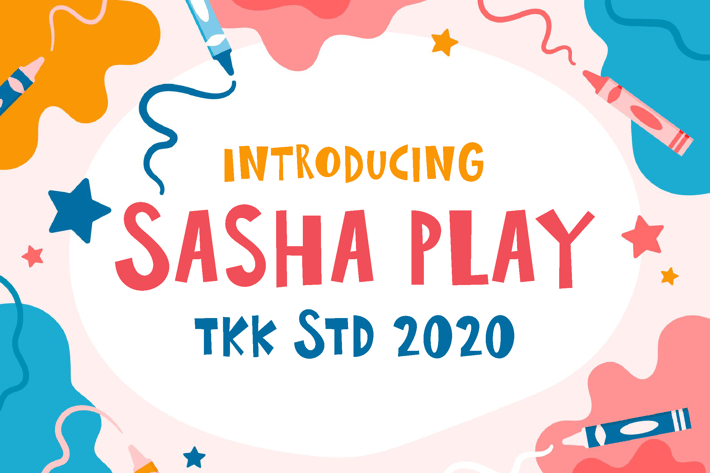
Sasha Play - Funny and Cute Comic font
SASHA PLAY – A Playful and Creative Kids’ Typeface
Sasha Play is a colorful, kid-friendly display font with soft curves, upbeat rhythm, and a whimsical vibe that instantly grabs attention. Designed with expressive proportions and playful geometry, this font feels imaginative yet easy to read—perfect for creative projects where fun and friendliness matter. Whether you're crafting banners, school posters, or storybooks, Sasha Play brings a joyful, approachable personality to your words.
Made for Kids, Loved by Creators
From storybook covers to educational worksheets, Sasha Play is a natural fit for designers creating for young audiences. Its charming letterforms and delightful bounce make it ideal for children’s books, classroom materials, YouTube thumbnails, and back-to-school campaigns. With its bright, inclusive tone, this font speaks directly to curious minds and caring creators.
Why You’ll Love Sasha Play
✅ Playful and Friendly Aesthetic – Designed to appeal to kids and parents alike
✅ Clear and Readable Structure – Keeps designs legible even in colorful layouts
✅ Perfect for Education & Entertainment – From lesson plans to bedtime stories
✅ Versatile Styles – Great for banners, timetables, and brand visuals
✅ Effortless Appeal – Instantly adds joy and warmth to your designs
Bring Learning and Laughter to Life with Sasha Play
Whether you're a teacher, illustrator, content creator, or children’s author, Sasha Play is your secret ingredient for creating joyful, kid-approved designs. Don’t wait—make your projects pop with playfulness and let Sasha Play do the storytelling!